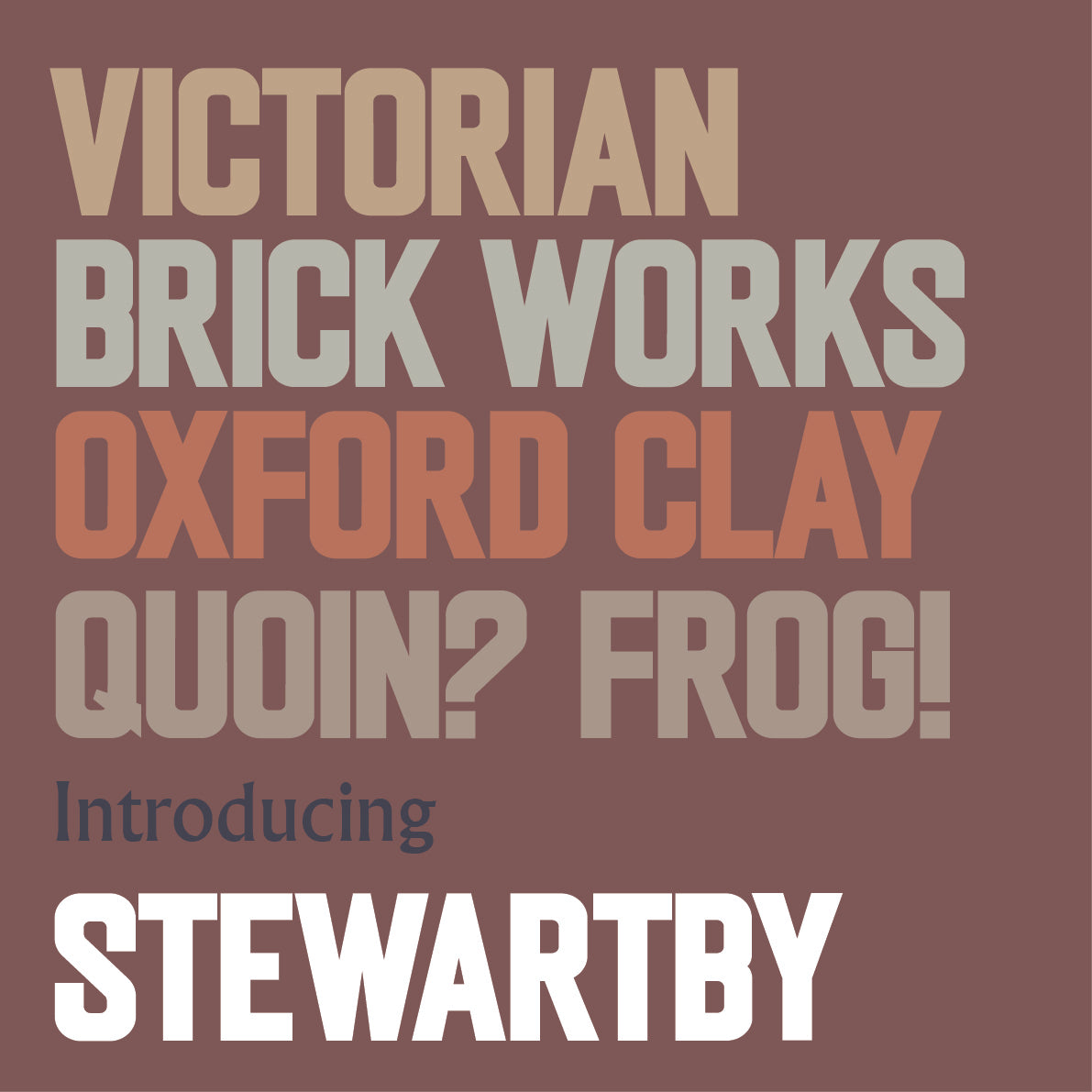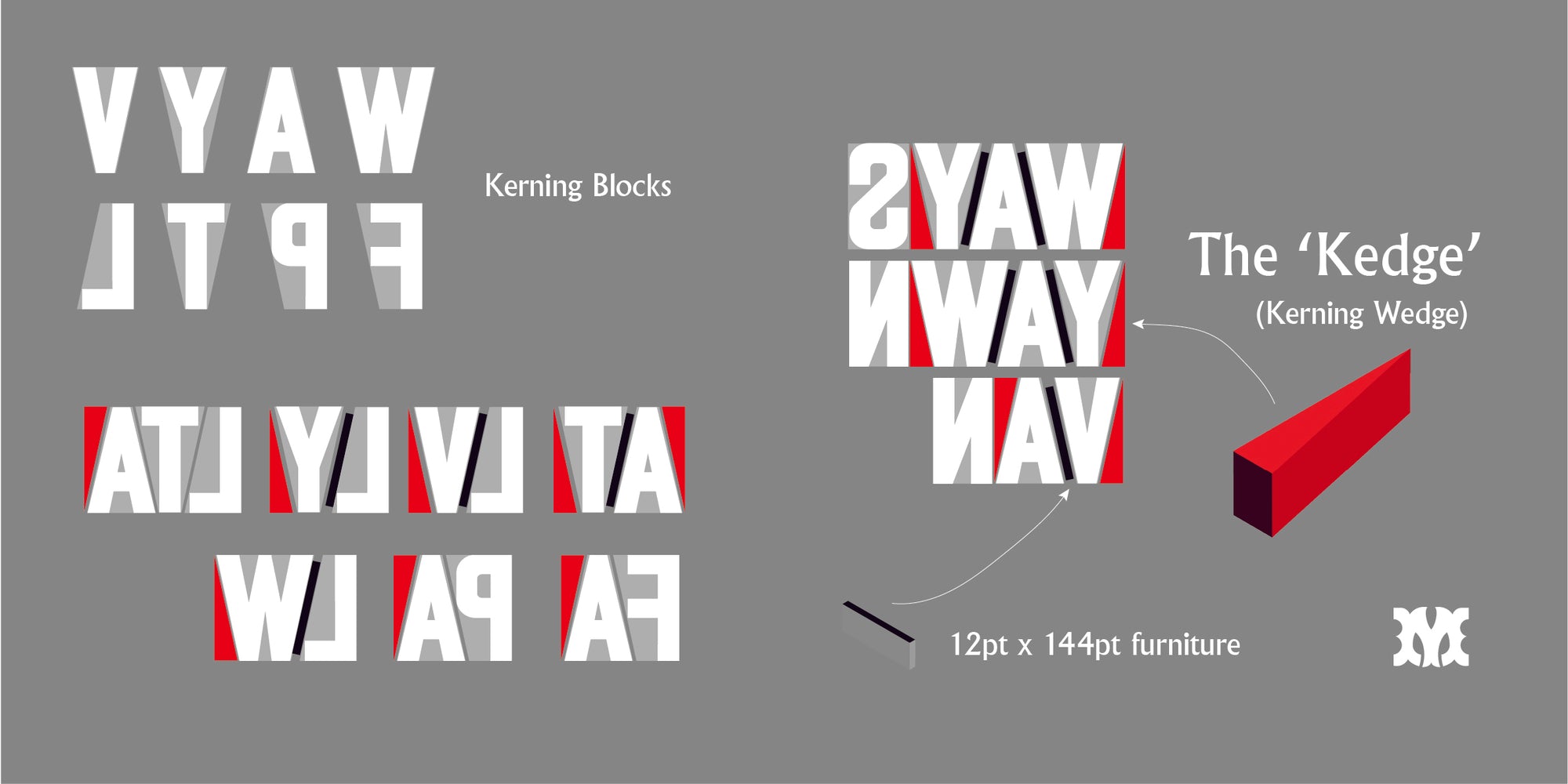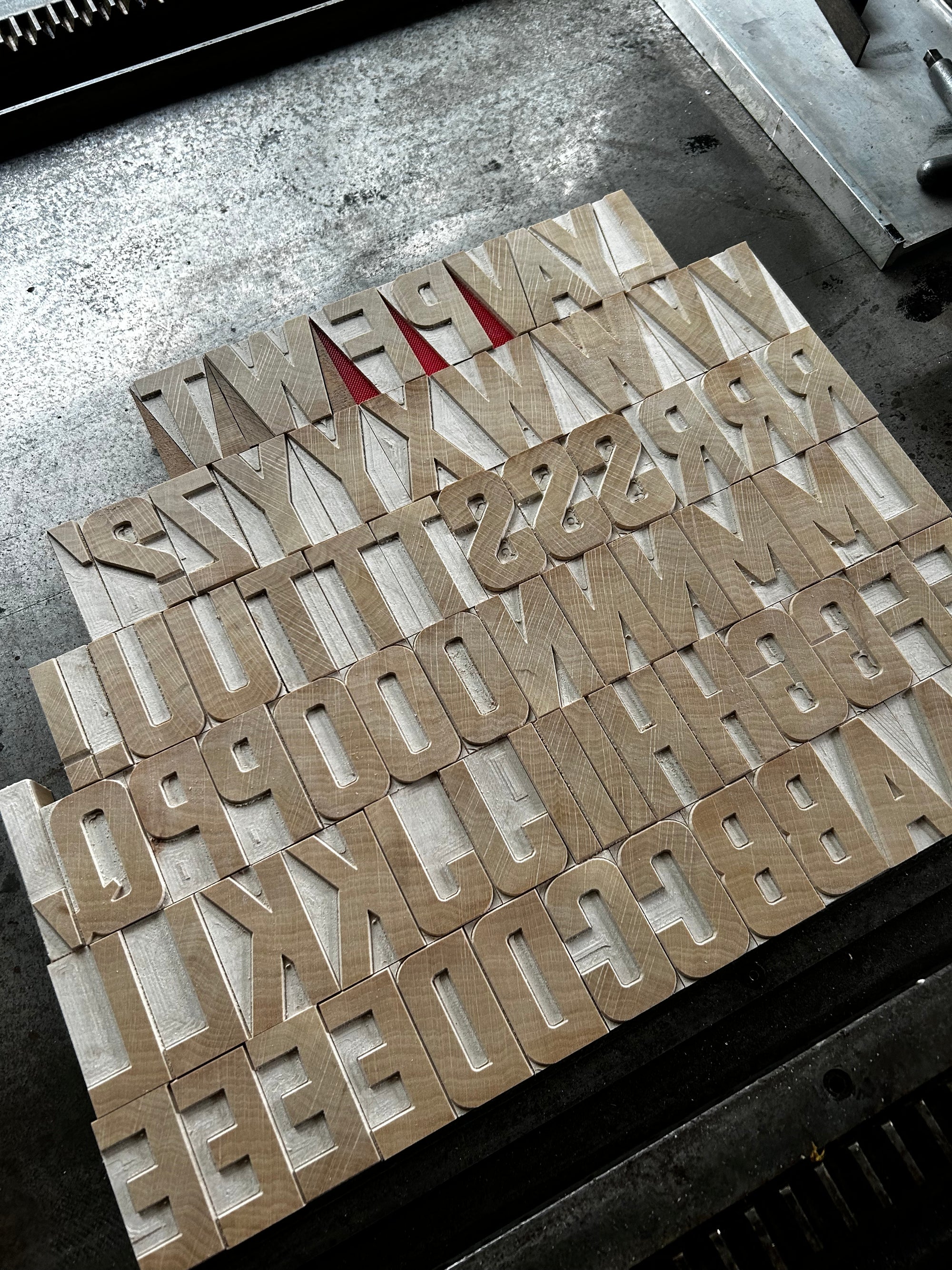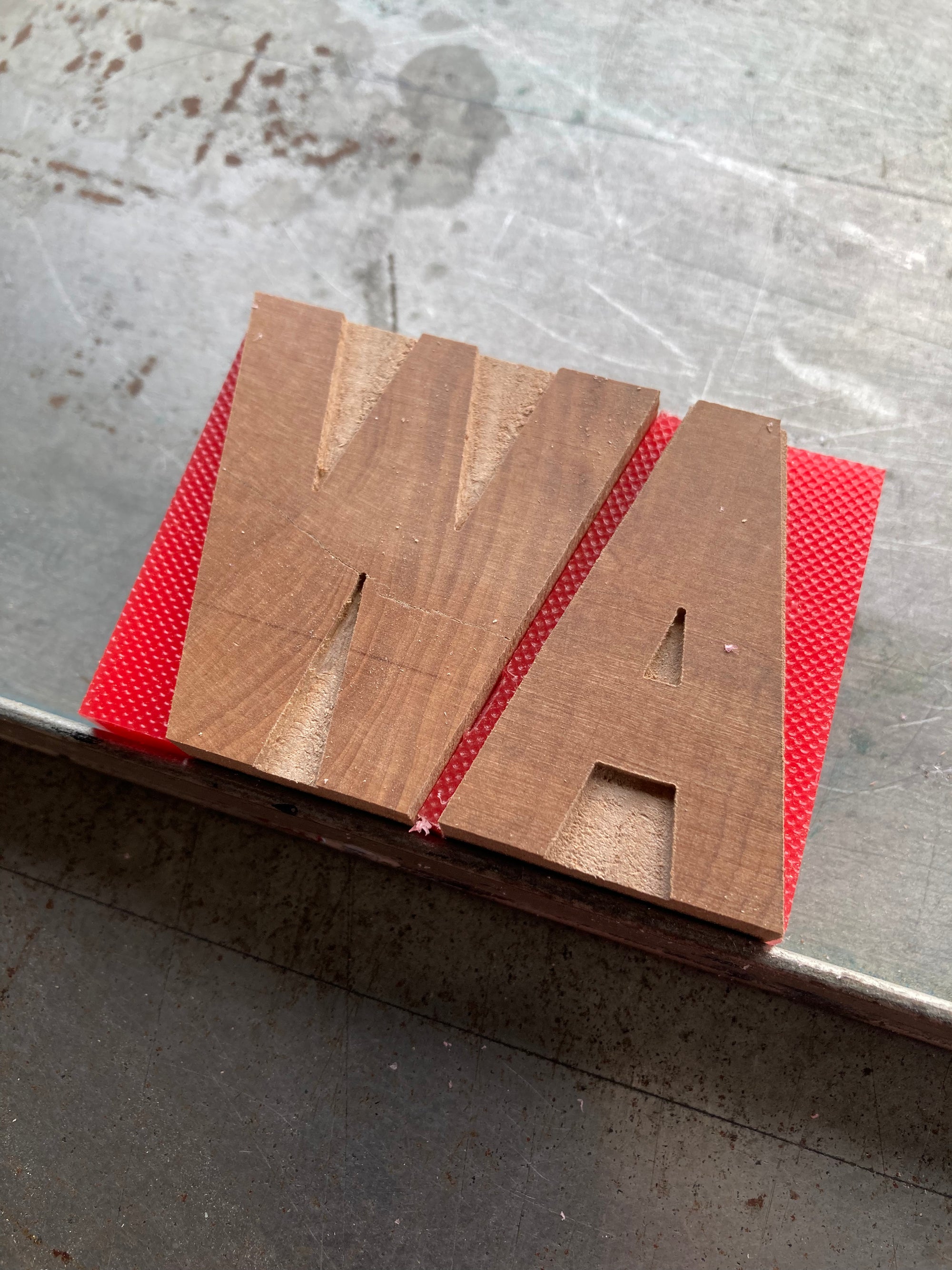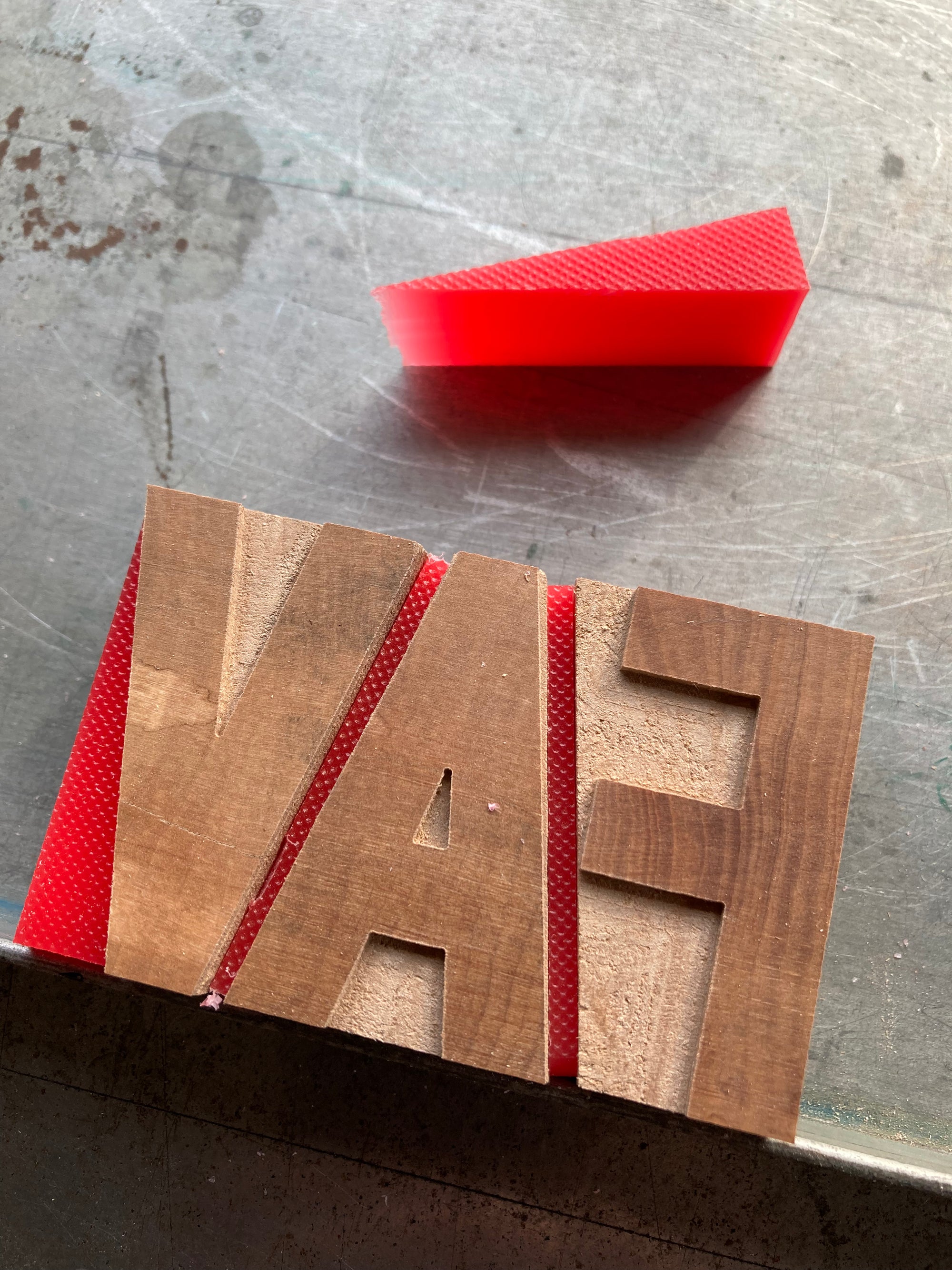
'Stewartby' letterpress woodtype typeface
Stewartby is a reworking of a combination of similar designs from my collection - you all have something similar in your cases but ‘Stewartby’ is for those after typographic perfection…
Introducing the ‘Kedge’ - a wedge designed for kerning with specially made ‘Stewartby’ kerning blocks (plus a 12x144pt spacer).
12 line (50.8mm) version cut from end grain English hardwood using a combination of modern CNC technology and traditional hand woodworking tools (including an original printers saw), made to English type-high (0.918in or 23.3mm) within plus or minus 0.1mm tolerance, sealed with shellac and hand finished with a traditional polished printing surface.
End grain English Hardwood, clear shellac